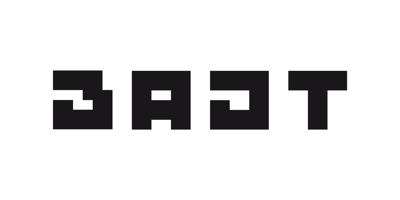
Bajt
Bajt font
Bajt Font Family was designed by Bartosz Panek and published by Fontsphere. Bajt contains 4 styles and family package options. Geometric, pixel-art-style, minimalist font. BAJT contains uppercase letters, numbers and a large range of punctuation. Use for awesome display, illustrations, posters, logos, t-shirts, titles, and more..